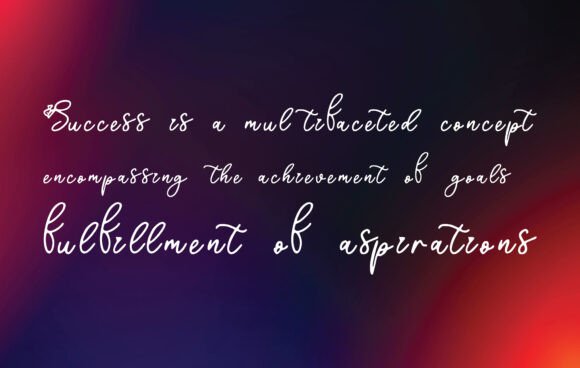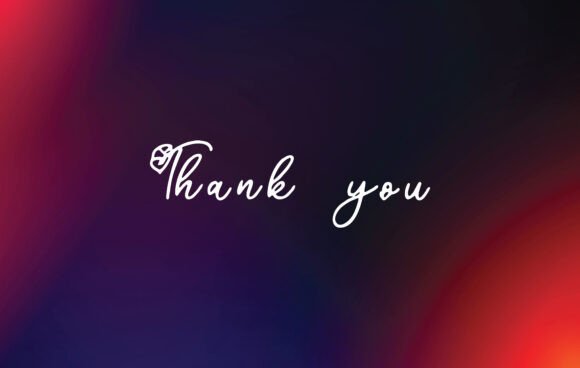
Discover the Beauty of Darcie Font: Elevate Your Designs with this Stunning Handwritten Font
Are you a designer or crafter looking for a font that can take your creative ideas to the next level? Look no further than Darcie Font, a lovely and beautiful handwritten font that is sure to impress. With its unique and elegant style, Darcie Font is the perfect choice for creating eye-catching logos, branding, and quotes that will leave a lasting impression on your audience.
What Makes Darcie Font So Special?
Darcie Font is a one-of-a-kind handwritten font that boasts a distinctive and charming style. Its flowing lines and curves give it a warm and inviting feel, making it perfect for designs that require a personal touch. Whether you’re creating a logo, branding materials, or social media graphics, Darcie Font is sure to add a touch of elegance and sophistication to your work.
The Benefits of Using Darcie Font
So why choose Darcie Font over other fonts? Here are just a few benefits of using this amazing handwritten font:
- Elegant and Sophisticated: Darcie Font has a unique and elegant style that is sure to elevate your designs and give them a professional finish.
- Versatile: Darcie Font is perfect for a wide range of design projects, from logos and branding to quotes and social media graphics.
- Easy to Read: Despite its elegant style, Darcie Font is easy to read and understand, making it perfect for designs that require a clear and concise message.
- Unique: Darcie Font is a one-of-a-kind font that will set your designs apart from the crowd and give them a distinctive look.
How to Use Darcie Font in Your Designs
Using Darcie Font in your designs is easy. Here are a few tips to get you started:
- Pair it with Other Fonts: Darcie Font pairs well with other fonts, so don’t be afraid to experiment with different combinations to find the perfect look for your design.
- Use it for Headings: Darcie Font is perfect for headings and titles, where its elegant style can really shine.
- Add a Personal Touch: Darcie Font is perfect for designs that require a personal touch, such as handmade or craft-related projects.
Who Can Benefit from Using Darcie Font?
Darcie Font is perfect for a wide range of designers and crafters, including:
- Graphic Designers: Darcie Font is perfect for graphic designers who need a unique and elegant font for their designs.
- Log designers: Darcie Font is perfect for log designers who want to create a distinctive and memorable logo for their clients.
- Crafters: Darcie Font is perfect for crafters who want to add a personal touch to their handmade projects.
- Social Media Influencers: Darcie Font is perfect for social media influencers who want to create eye-catching graphics and quotes for their followers.